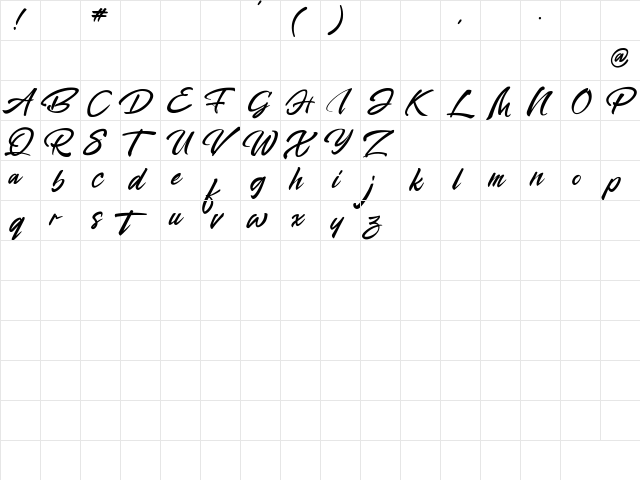
Skyfall Regular
Regular · Bluetype Ferry Ardana Putra + Bluetype ·
Foundry Bluetype
FoundryBluetype
DesignerFerry Ardana Putra + Bluetype
Design Context for Skyfall Typeface
Skyfall is a composed and adaptable typeface that performs quietly and consistently across a wide range of design contexts.